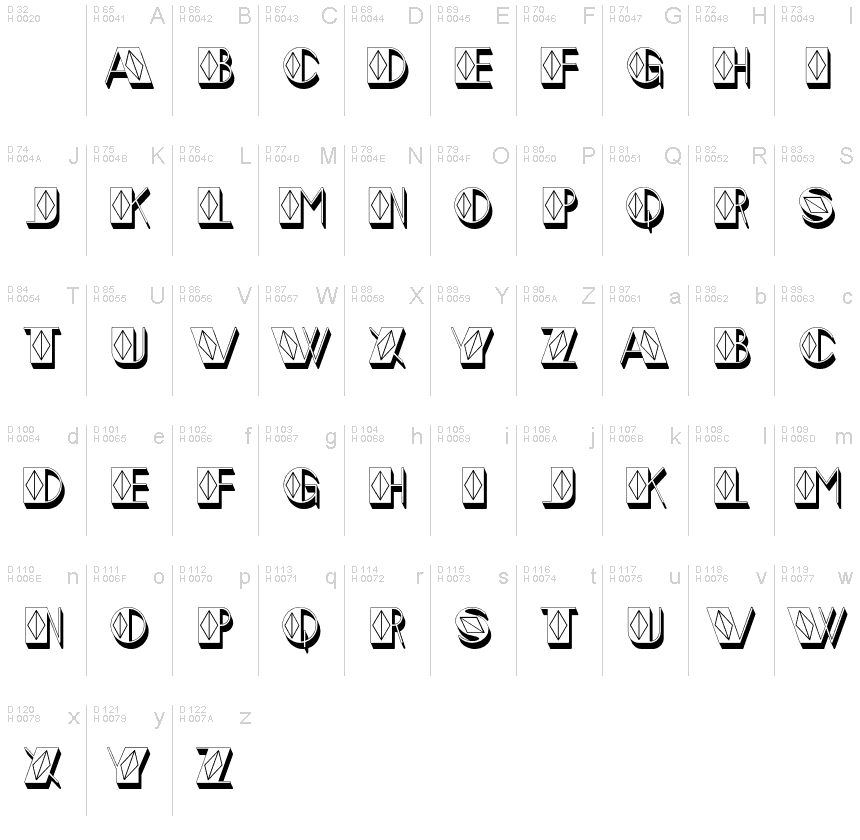
Cristal Hollow Regular
Cristal Hollow is a bold, wide, decorative 3d display font designed by Vladimir Nikolic. Perfect for creating eye-catching logos, titles and headlines, it will make your projects stand out with its unique 3d style.